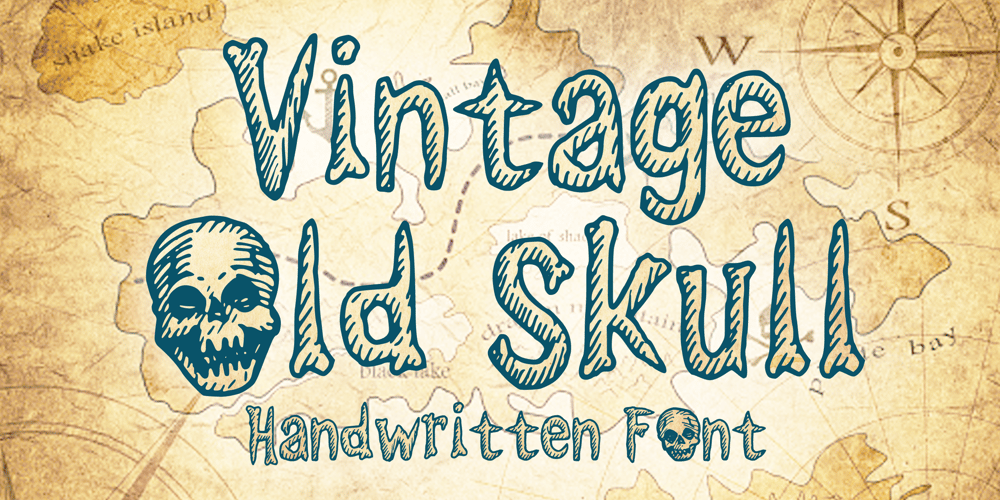
Vintage Old Skull 2.0
Vintage Old Skull 2.0 font
Vintage Old Skull 2.0 Font Family was designed by Gabriel Valentinus and published by Mvmet. Vintage Old Skull 2.0 contains 1 styles and family package options. Vintage Old Skull 2.0 is a vintage skull-themed hand-drawn display font suitable for various projects and now comes with new version which include English, French, German, Italian, and Spanish. You can use it for anything ranging from t-shirts, kids’ book designs, and greeting cards to stickers and posters, or anything that needs a casual touch. Fall in love with its incredibly versatile style and use it to create lovely designs!